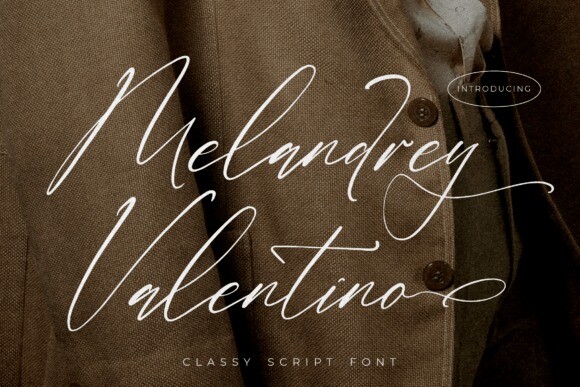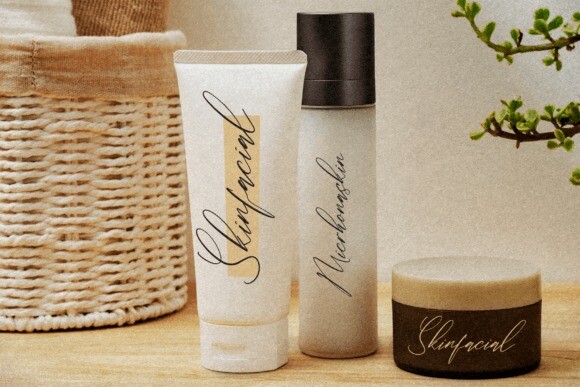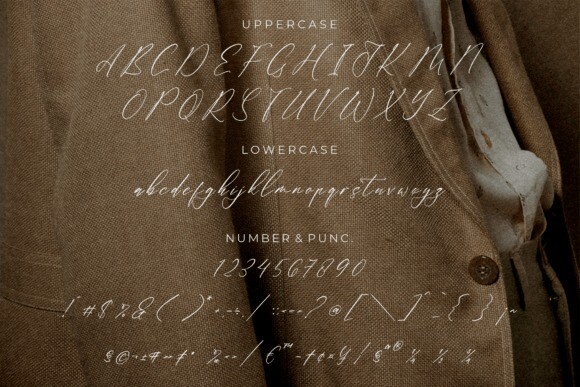
Melandrey Valentino Font
Melandrey Valentino Font – Classy Script Font , from Letterfabric Studio, suitable for any projects such as: logos, branding projects, homeware designs, product packaging, mugs, quotes, posters, shopping bags, t-shirts, book covers, name card, invitation cards, greeting cards, label, photography, watermark, special events, and all your other lovely projects that need a beautiful script taste.